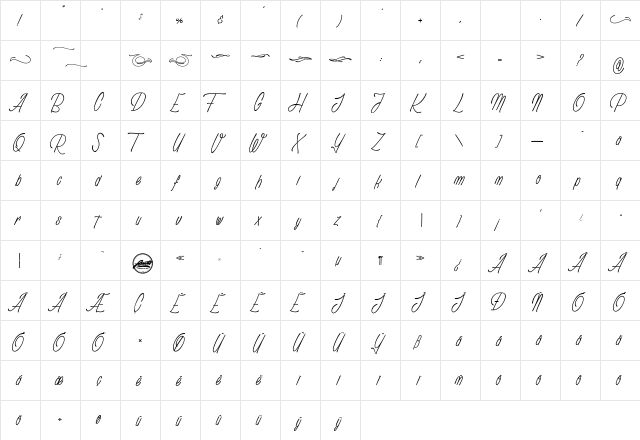
Anathematise_PersonalUseOnly Regular
| Foundry | dcoxy Medina Gregory |
| Designer | dcoxy Medina Gregory |
Design Context for Anathematise_PersonalUseOnly Typeface
Anathematise_PersonalUseOnly is a composed and adaptable typeface that performs quietly and consistently across a wide range of design contexts.